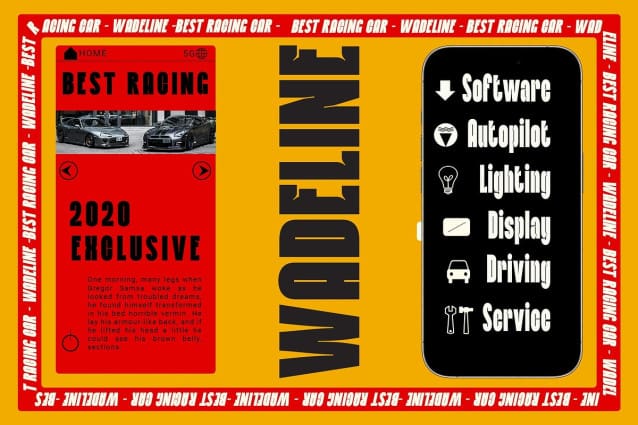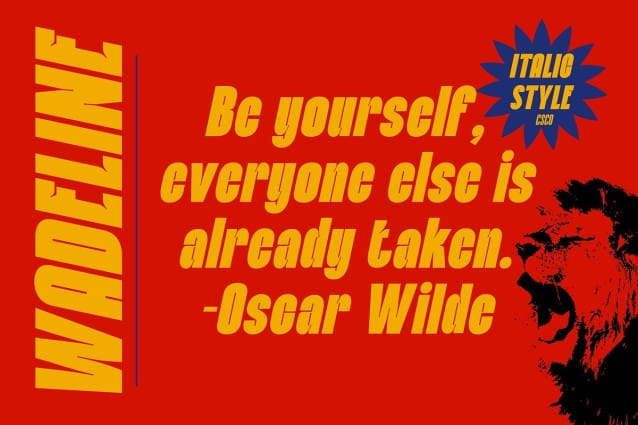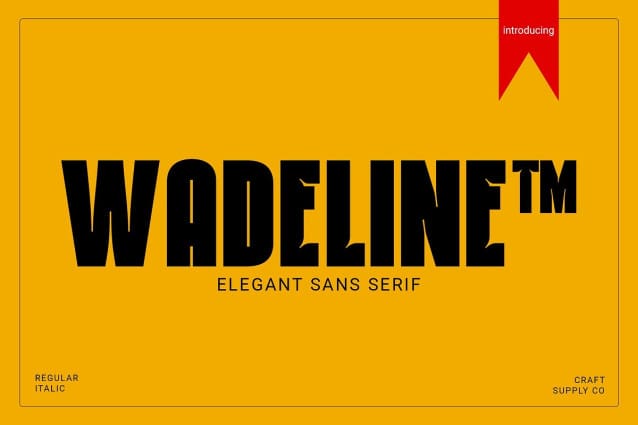
Wadeline Font
Wadeline Font: Making a Bold Statement.  Slim Sans Serif Design Wadeline boasts a slim sans serif design with narrow white space, creating a sleek and modern aesthetic. Its condensed form allows for efficient use of space while maintaining readability.
Bold Impact With its bold weight, This font demands attention and makes a powerful statement. Each character exudes confidence and authority, perfect for corporate branding and displays.
Ideal for Corporate Display Tailored for corporate environments, This font is an ideal choice for making a statement in presentations, signage, and branding materials. Its bold presence ensures visibility and impact.
Striking Versatility Despite its condensed form, This font offers versatility in application. From headlines and logos to product packaging and advertising, it delivers a striking visual impact that commands attention.
Sleek, Bold, and Impactful This font combines a slim sans serif design with bold weight, making it a standout choice for corporate displays and branding. Its condensed form and powerful presence ensure that your message is seen and heard loud and clear.